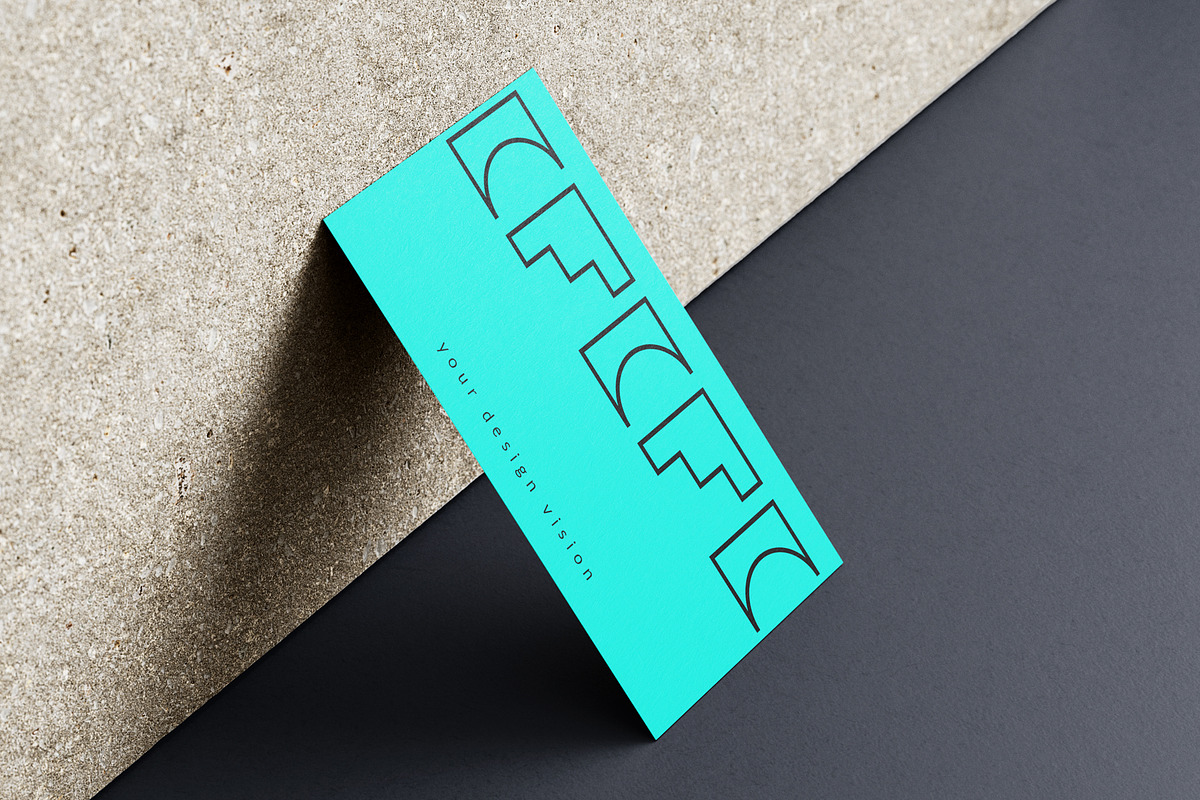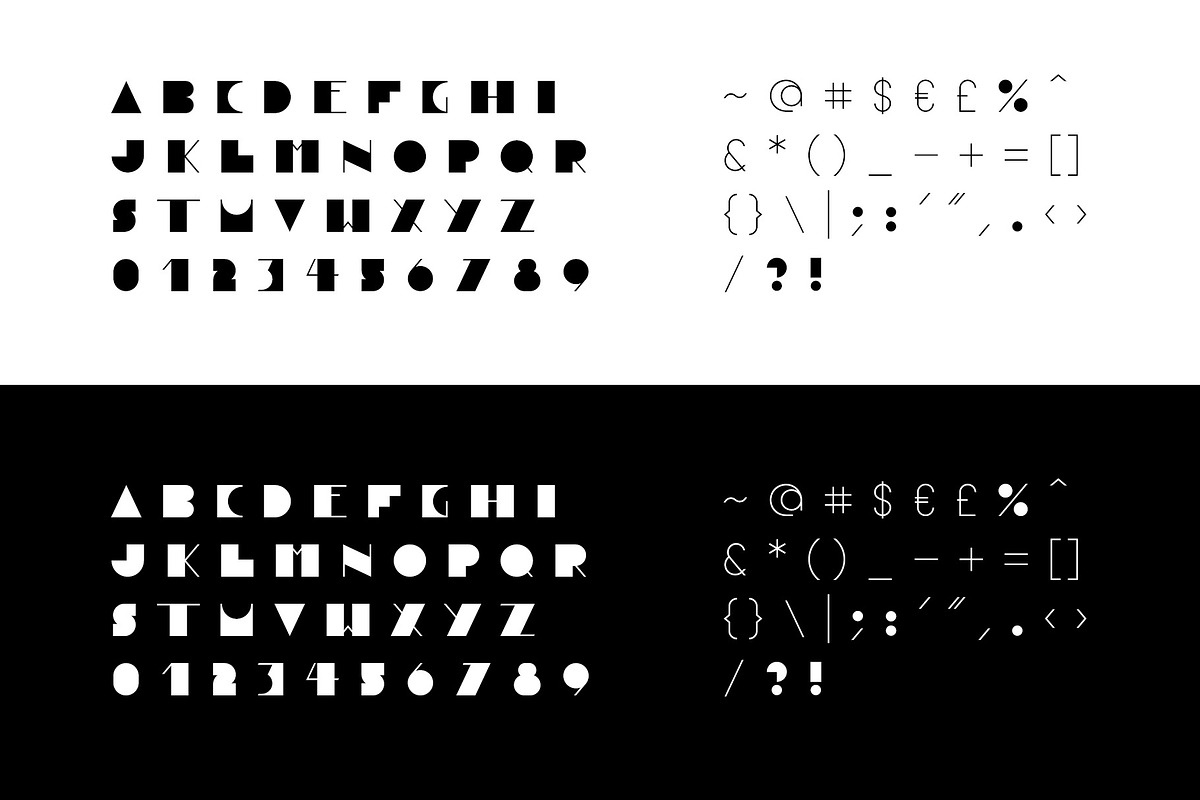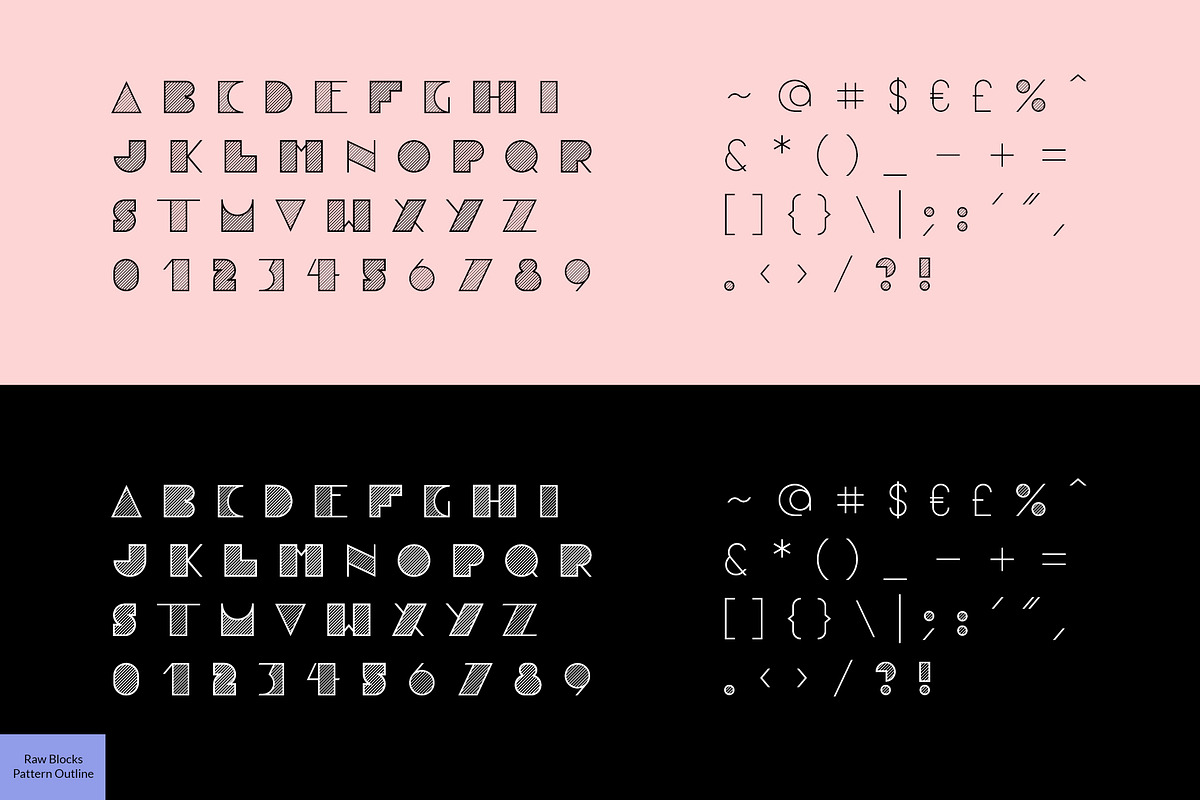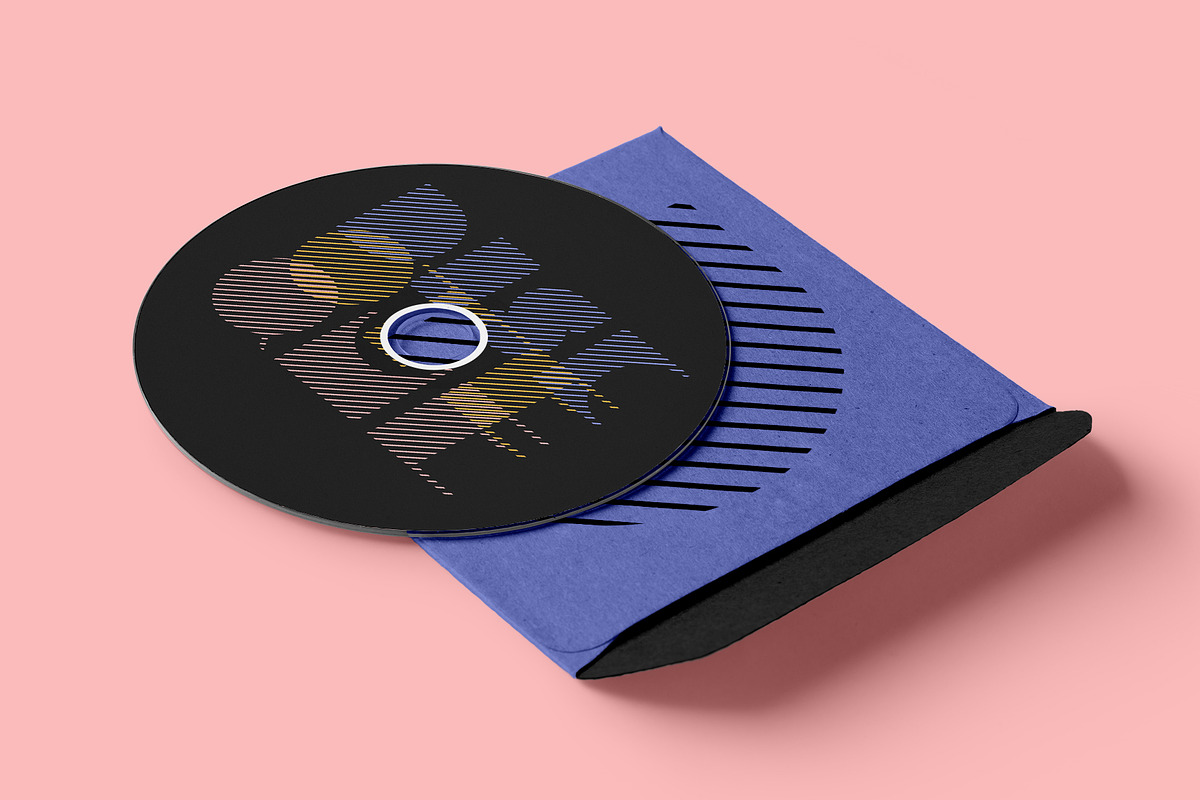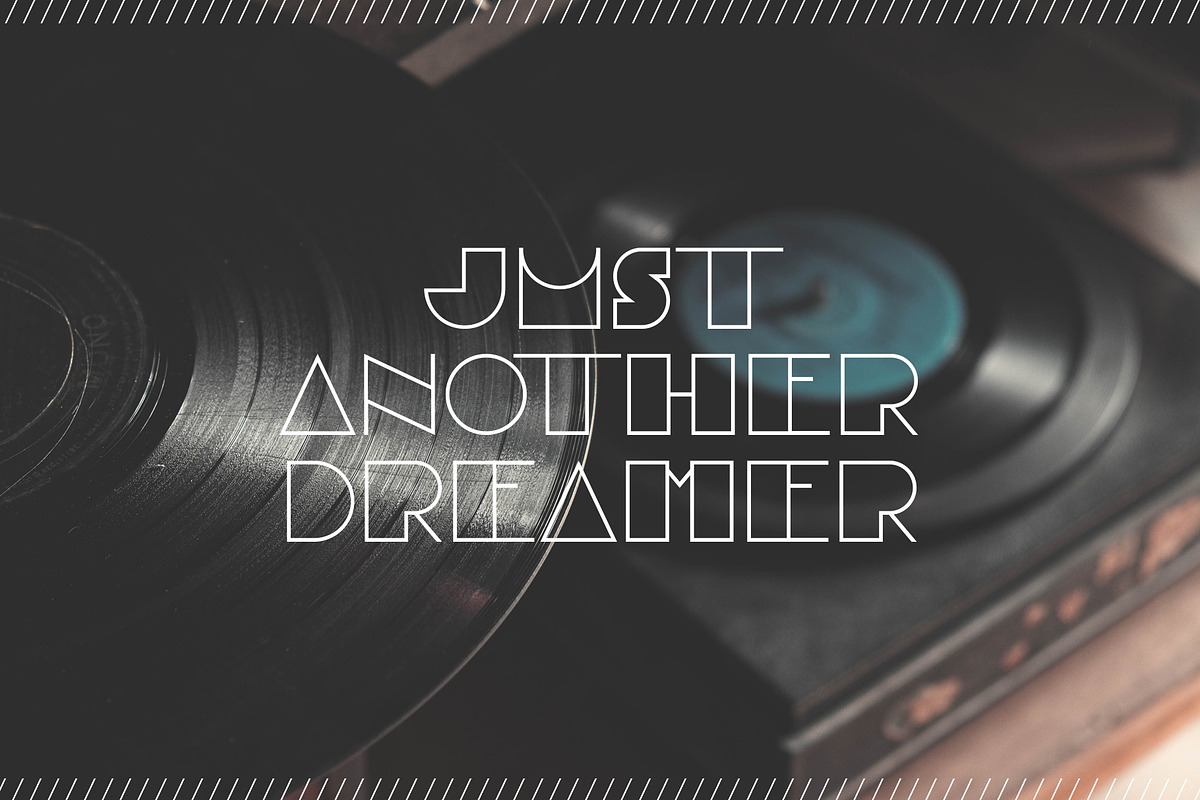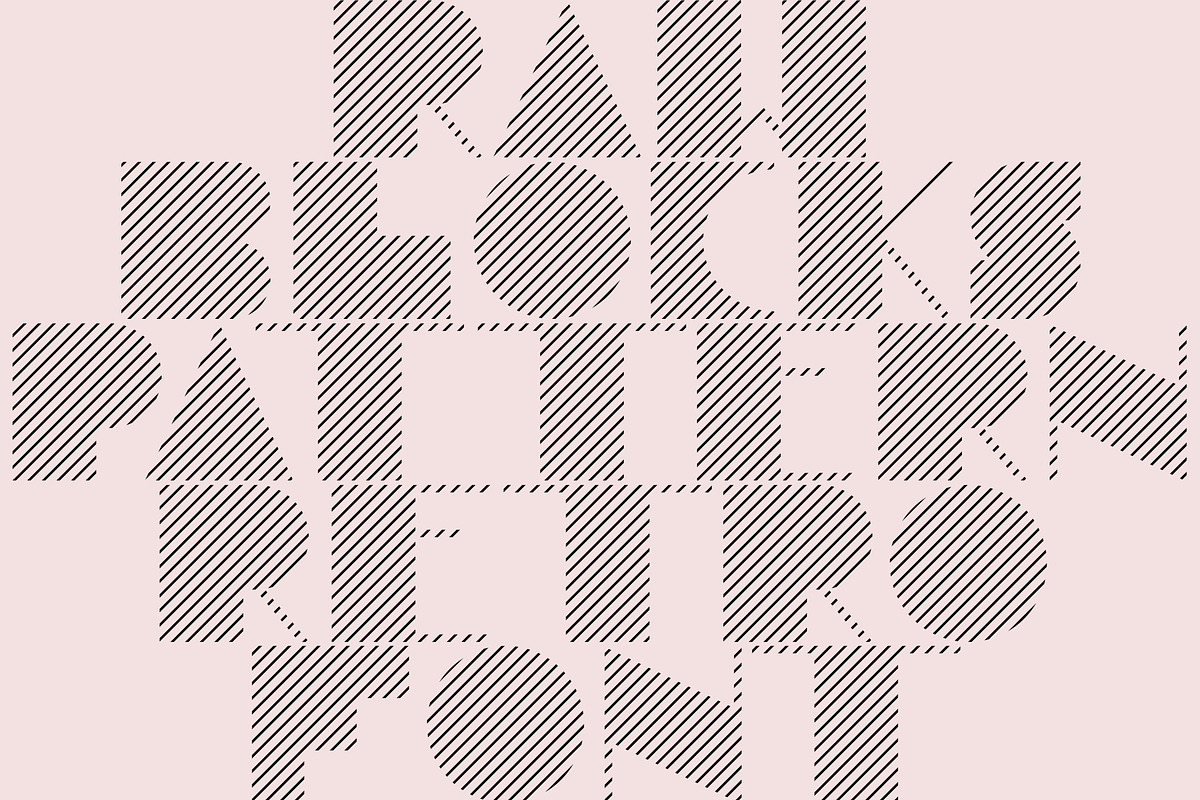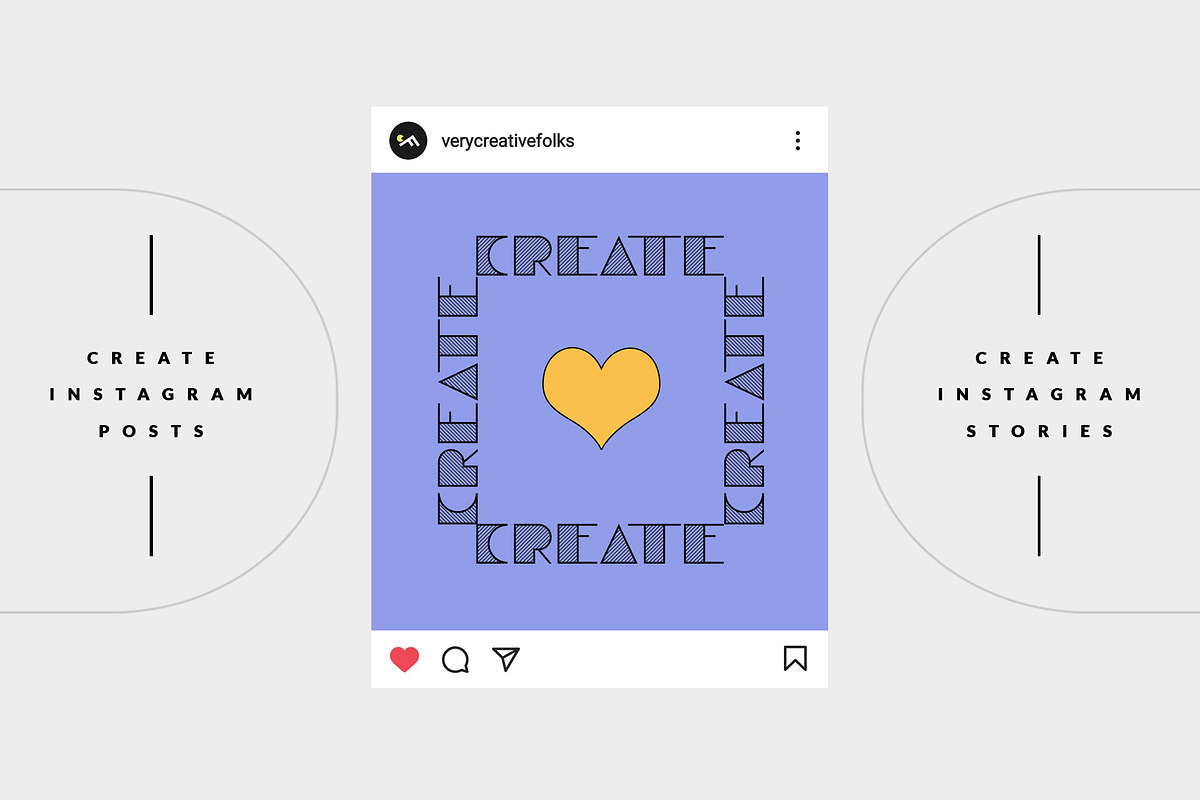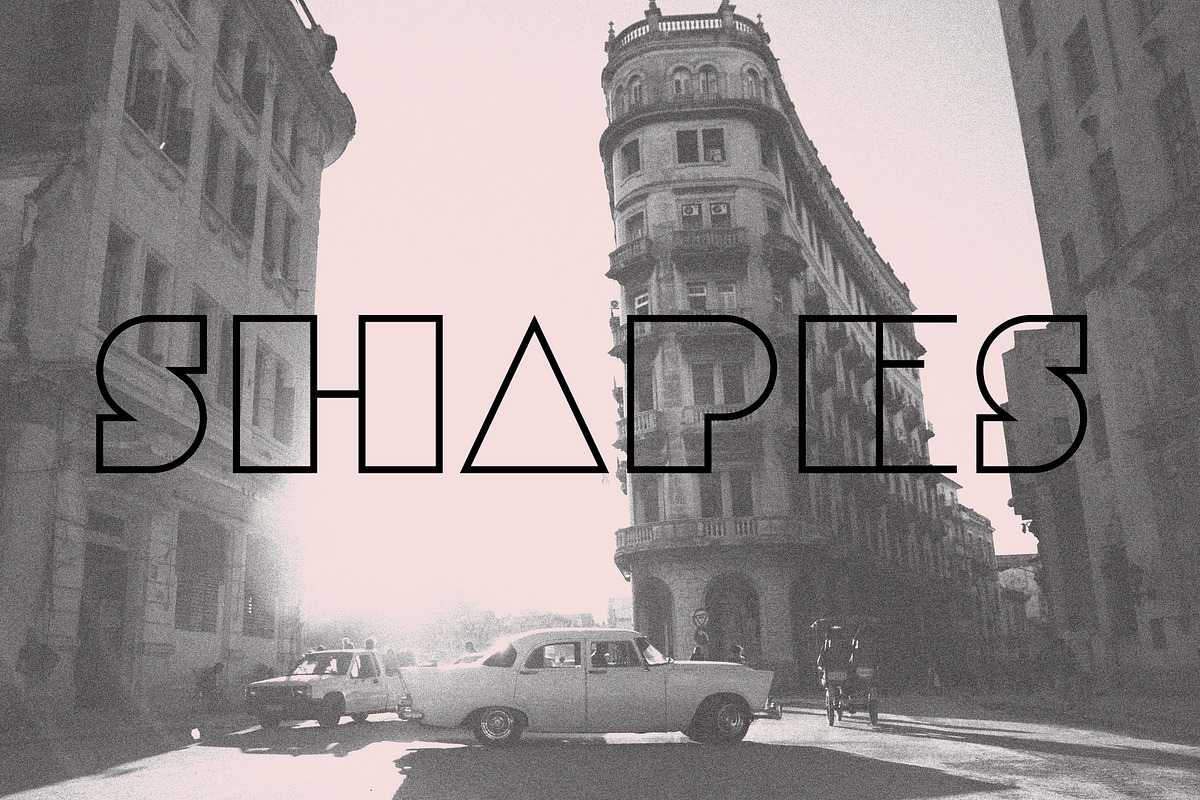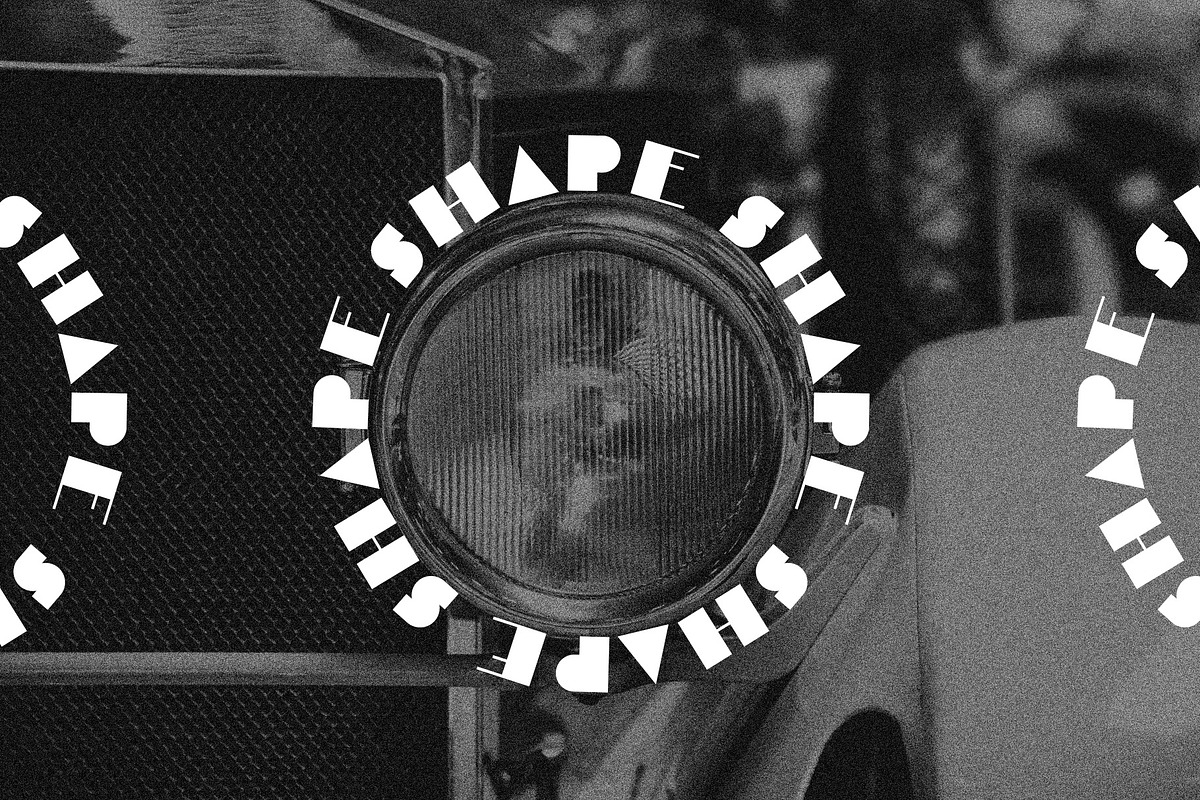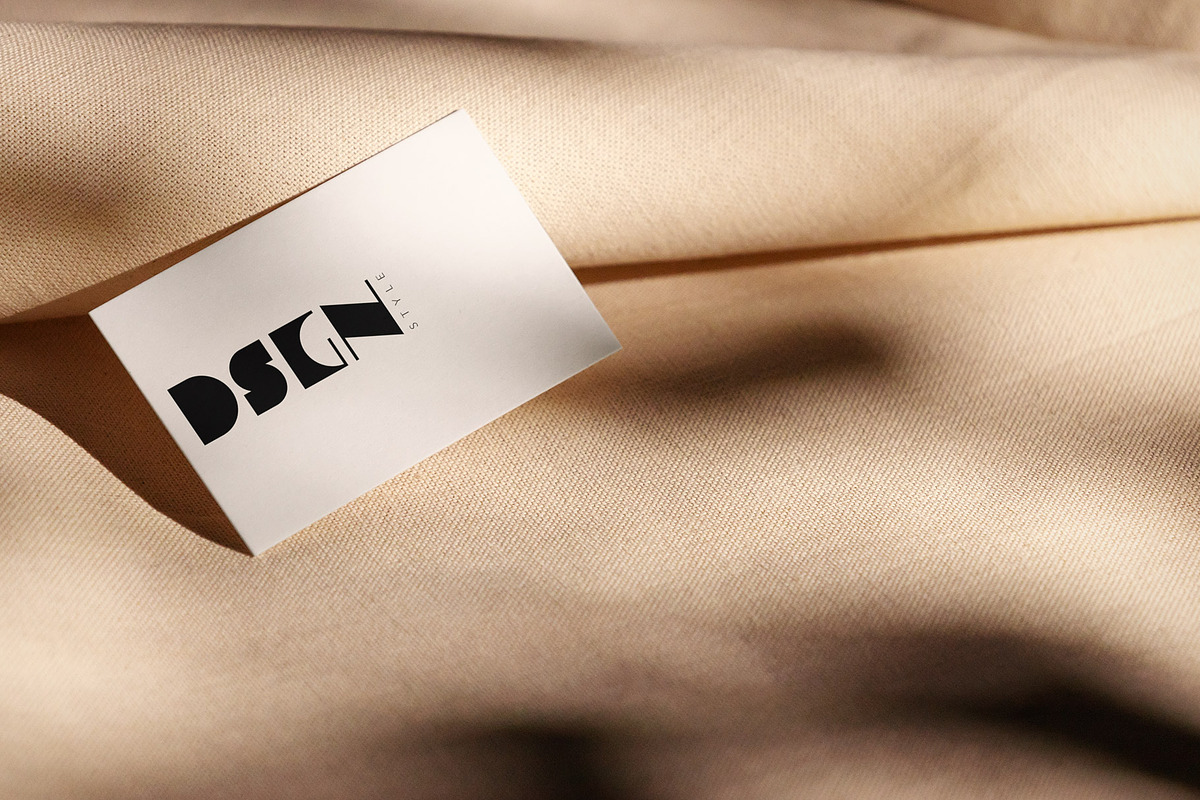
Raw Blocks- Elegant Retro Fonts Pack
Introducing a trendy vintage bold & outline, pattern styles fonts' pack. These retro typefaces were created using various thick bold shapes - rectangles, circles & triangles as well as patterns. Main focus – minimalist clean lines that reduce shapes to their essential elements. These fonts are like an echo of past sentiments, elegance and classy style.
Use "Raw Blocks“ fonts in black color when you need to give a luxury feel to your designs. Or make some characters colorful and your design will get more playful, vintage look.
These uppercase fonts work great in minimalist design styles when you need a good accent for titles, headlines. They're great for various print and web projects - blogs, invitations, flyers, posters, short quotes in social media, brochures, packaging, business cards, etc.
If you need to create a stylish abstract logo in a couple of minutes - „Raw Blocks“ fonts are ideal for this!
- Uppercase characters